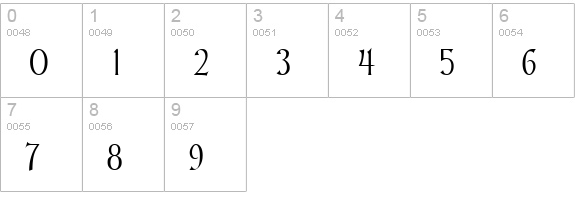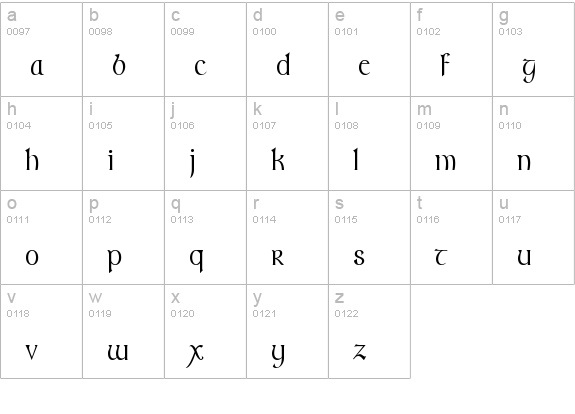
TolkienNarrowUpright Regular Font Details
TolkienNarrowUpright Regular is the standard, neutral variant in the TolkienNarrowUpright typeface family \xE2\x80\x94 well suited to general body text, paragraphs, and standard typographic work.
TolkienNarrowUpright Regular is a visually stunning font that embodies elegance and sophistication. With its sleek and slender design, this font adds a touch of refinement to any project or design. Its narrow upright structure perfectly balances readability and style, making it suitable for a variety of creative endeavors. The carefully crafted letterforms of TolkienNarrowUpright Regular exude a sense of timeless beauty. Each character is meticulously designed, featuring delicate curves and precise angles that create a harmonious visual composition. This font effortlessly captures attention and conveys a sense of professionalism and class. One of the most remarkable aspects of TolkienNarrowUpright Regular is that it is freely available to download at FontsMarket.com. This means that anyone can enjoy the beauty and versatility of this font without any cost. Whether you are a professional designer, a student, or an enthusiast, this font offers you the opportunity to enhance your projects with its unique and captivating style. The versatility of TolkienNarrowUpright Regular allows it to seamlessly blend into a wide range of design applications. From elegant invitations and wedding stationery to sophisticated logos and branding materials, this font is the perfect choice for projects that require a touch of refinement and creativity. Furthermore, the legibility of TolkienNarrowUpright Regular is exceptional, ensuring that your message is communicated effectively. Each character is meticulously crafted to ensure clarity and readability, even in smaller sizes. This font is designed to make your content shine, whether it is in print or on-screen. In conclusion, TolkienNarrowUpright Regular is a visually stunning font that combines elegance, sophistication, and versatility. With its narrow upright design, it adds a touch of refinement to any project. Best of all, it is freely available to download at FontsMarket.com, allowing you to enhance your designs without any cost. So why wait? Download TolkienNarrowUpright Regular today and let your creativity flourish.